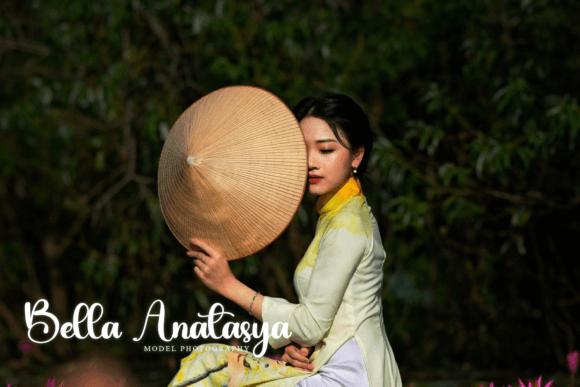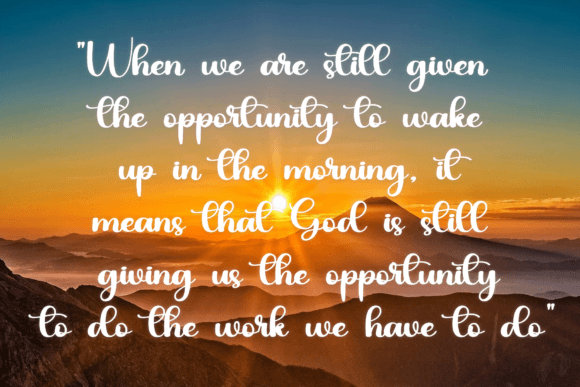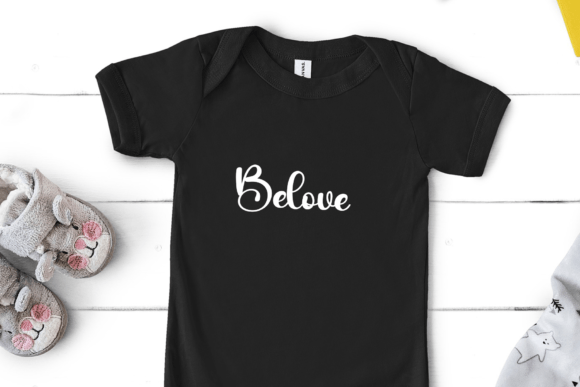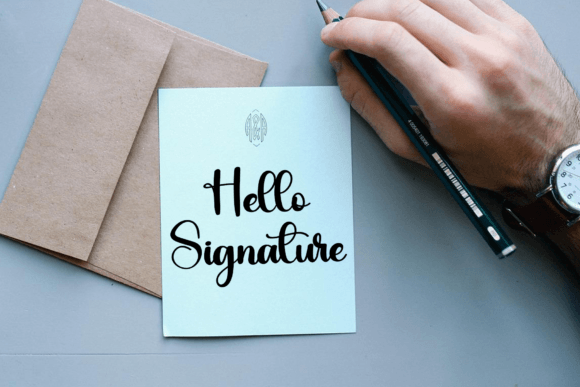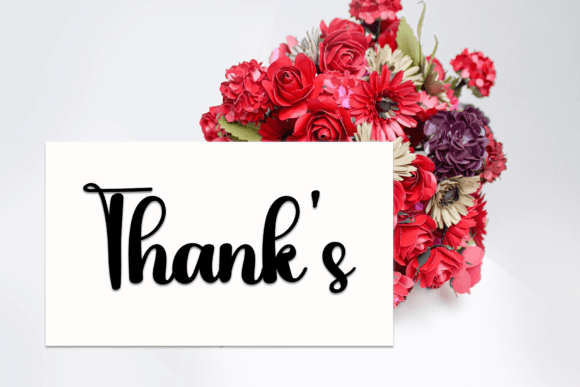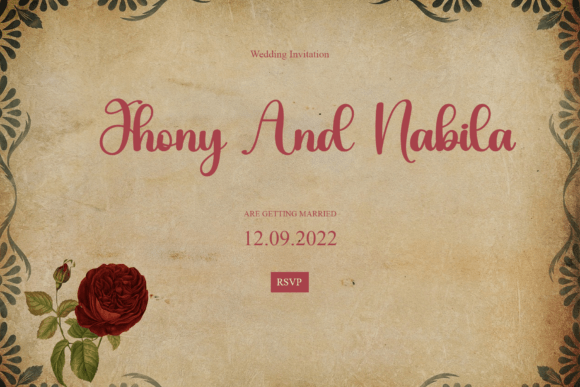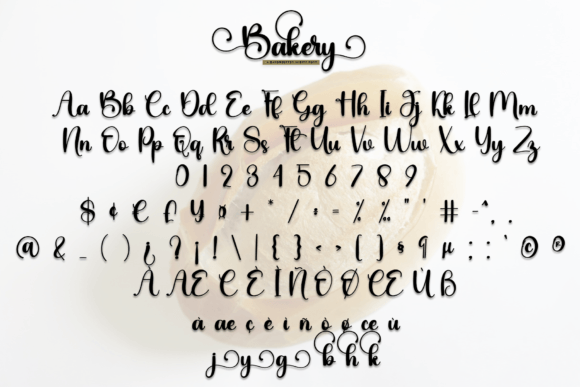
Bakery Font
About Bakery Font
“Bakery” is an elegant and feminine typeface that exudes sophistication, making it a perfect choice for various types of headlines and design projects. Its versatile nature makes it well-suited for applications such as wedding stationery, invitations, florists’ branding, packaging, and social media posts.
The elegance of “Bakery” is evident in its carefully crafted design, which radiates sophistication and femininity. This typeface adds a touch of grace and charm to projects, whether it’s featured in wedding invitations, stationery, or social media posts, contributing to a timeless and elegant aesthetic.
The font’s adaptability is highlighted in its ability to seamlessly integrate into different design contexts. In the realm of wedding stationery, “Bakery” contributes to the creation of a romantic atmosphere with its elegant and feminine style. For florists’ branding and packaging, it brings a layer of sophistication that complements the delicate beauty of flowers and botanical elements.
When applied to social media posts, especially those related to weddings or feminine themes, “Bakery” stands out as an elegant and captivating choice. Its upscale and feminine vibe makes it a valuable asset for creating visually appealing and impactful content.
In summary, “Bakery” is more than just a typeface; it’s an elegant and feminine design tool that enhances the visual appeal of your projects. Whether used in wedding-related materials, florists’ branding, packaging, or social media posts, “Bakery” brings a touch of timeless elegance, ensuring a captivating presence in every creative endeavor.